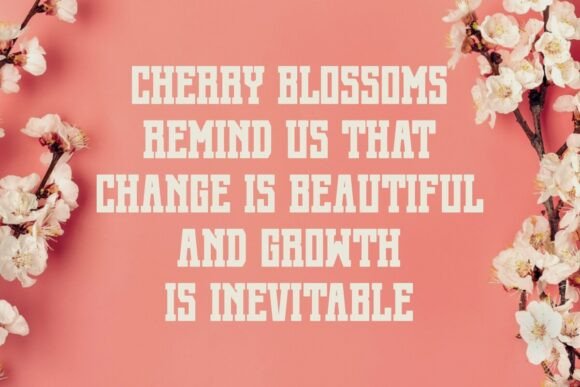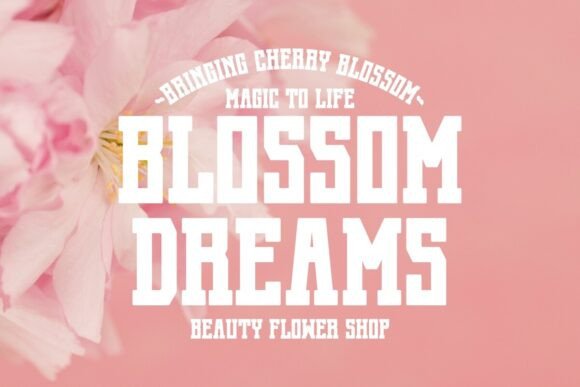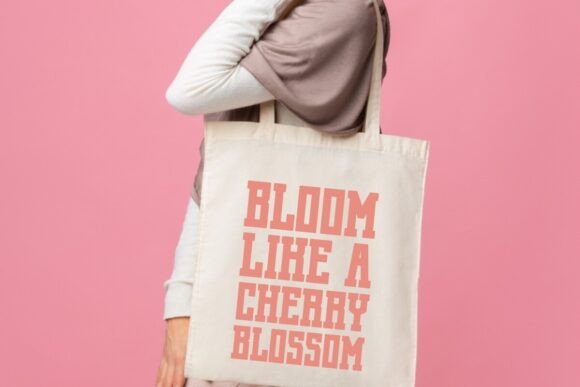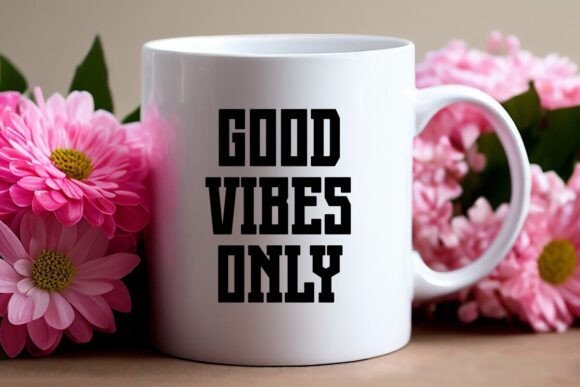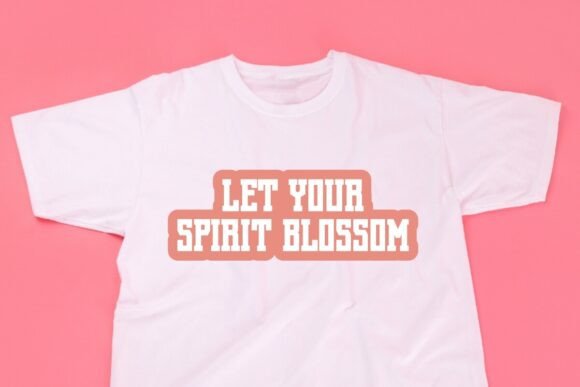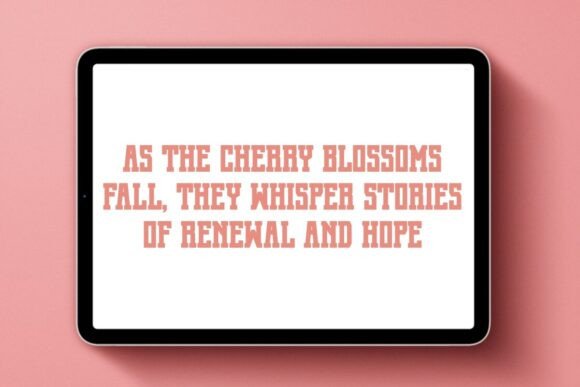
The Magic of Cherry Blossom Font: A Designer’s Delight
I’ll never forget the time I was working on a project for a client who wanted a festive and modern design for their cherry blossom-themed merchandise. I spent hours scouring the internet for the perfect font, but nothing seemed quite right. That was until I stumbled upon the Cherry Blossom font. It was like a breath of fresh air – bold, modern, and perfectly capturing the delicate beauty of cherry blossoms. In this article, I’ll share my experience with this amazing font, its features, and how to make the most of it in your designs.
Here’s what I’m obsessed with about the Cherry Blossom font:
- ✨ Bold and modern slab serif design that instantly elevates any project
- ✅ Perfect for quotes, posters, branding logos, and apparel mockups like t-shirts, mugs, and tote bags
- 🎉 Works beautifully for magazine headlines and social media designs, adding a fresh and seasonal touch
- 💻 Supports OpenType features for advanced typography and customization
While the Cherry Blossom font is amazing, there are a few things to keep in mind:
- 🤔 Some characters may require manual kerning for optimal spacing
The Story Behind Cherry Blossom Font
The Cherry Blossom font was inspired by the delicate beauty of cherry blossoms and the festive spirit of Christmas. The designer wanted to create a font that captured the essence of these seasonal themes, while also being versatile enough for everyday use. The result is a bold, modern slab serif font that’s perfect for a wide range of design projects.
| Font Name | Cherry Blossom Font |
| Author | Pian45 |
| What is the Cherry Blossom font best used for? | The Cherry Blossom font is perfect for quotes, posters, branding logos, apparel mockups, merchandise, magazine headlines, and social media designs. |
| Is the Cherry Blossom font suitable for body text? | While the Cherry Blossom font is bold and eye-catching, it’s best used for headlines and titles. For body text, a clearer font may be more suitable. |
| Does the Cherry Blossom font support OpenType features? | Yes, the Cherry Blossom font supports OpenType features, including ligatures and stylistic alternates. |